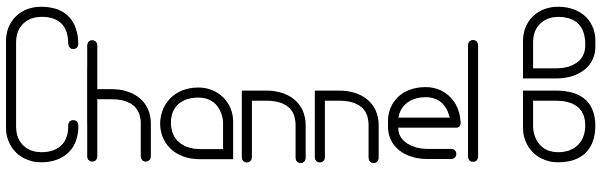
Channel B
Channel B was derived from the logo for Channel B, a British entertainment internet channel, anchored by former Soccer AM presenter Tim Lovejoy at www.dailymotion.com/channelbee. I’m not sure what it was in 2008 when I first ran across the logo, but...